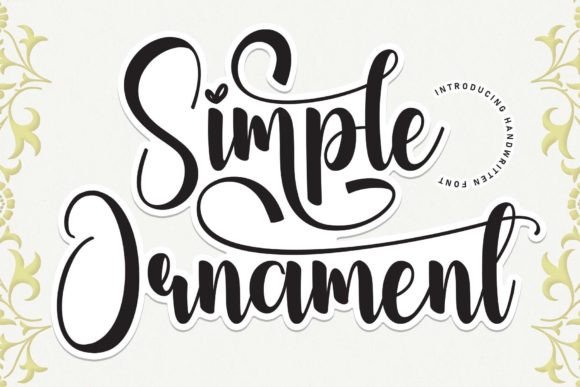
Introducing the Simple Ornament Font, a captivating and versatile script font designed to elevate your creative projects to new heights. Created by the talented team at Creativewhitee, this font is the perfect choice for those seeking a Font For Email Signature that leaves a lasting impression.
With our special creative products, we strive to provide you with an extraordinary experience. The Simple Ornament Font is no exception. Its latest style letters are not only visually stunning but also incredibly versatile, making it suitable for a wide range of applications. Whether you need to create eye-catching wall displays, elegant wedding invitations, professional social media post logos, captivating advertisements, stylish product packaging, or unique product designs, this font has got you covered.
But that's not all – the Simple Ornament Font is perfect for all your labeling needs, photography projects, watermarks, invitations, stationery, and any project that requires a touch of tasteful handwriting. Its versatility knows no bounds, allowing you to unleash your creativity without limitations.